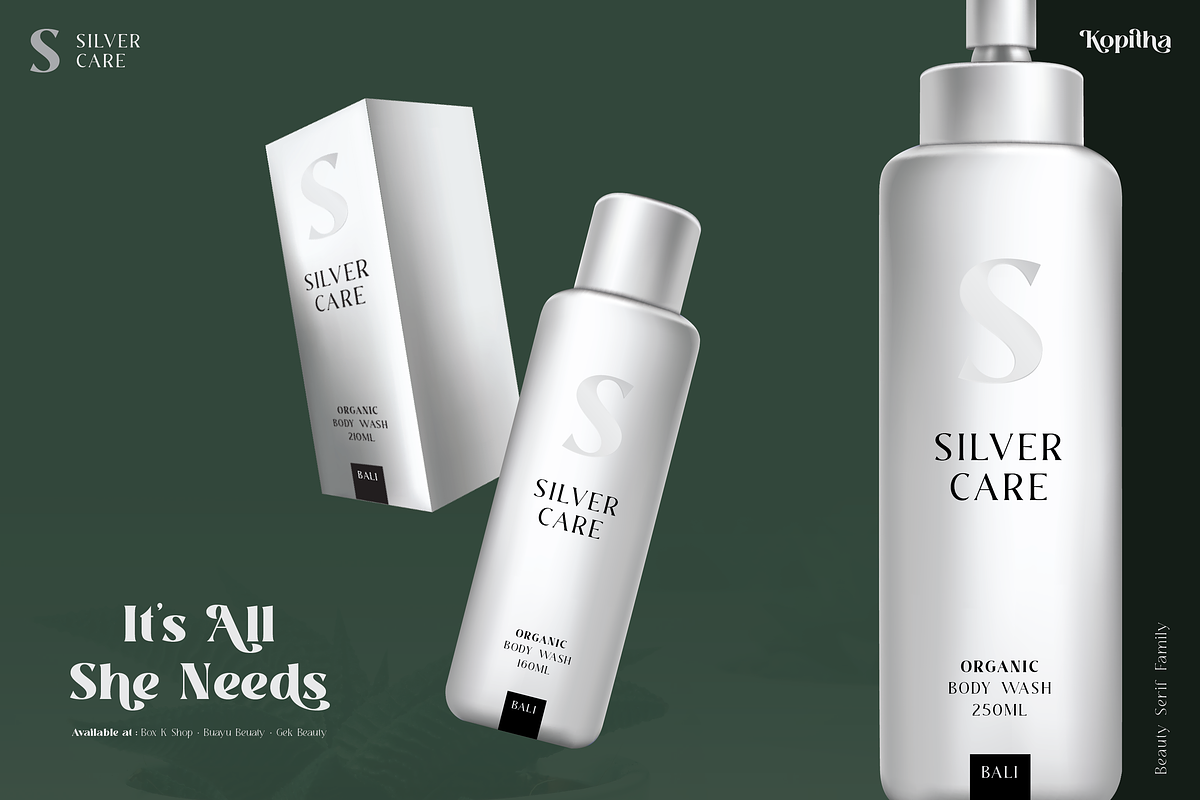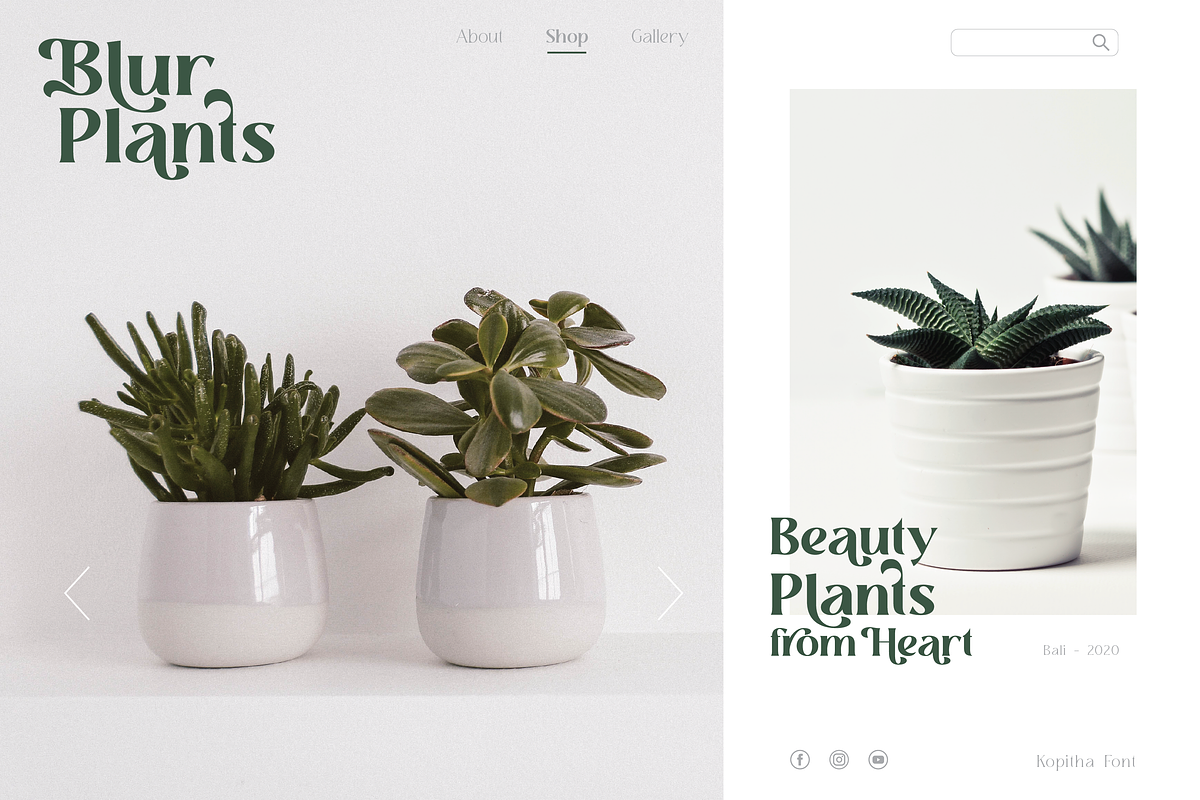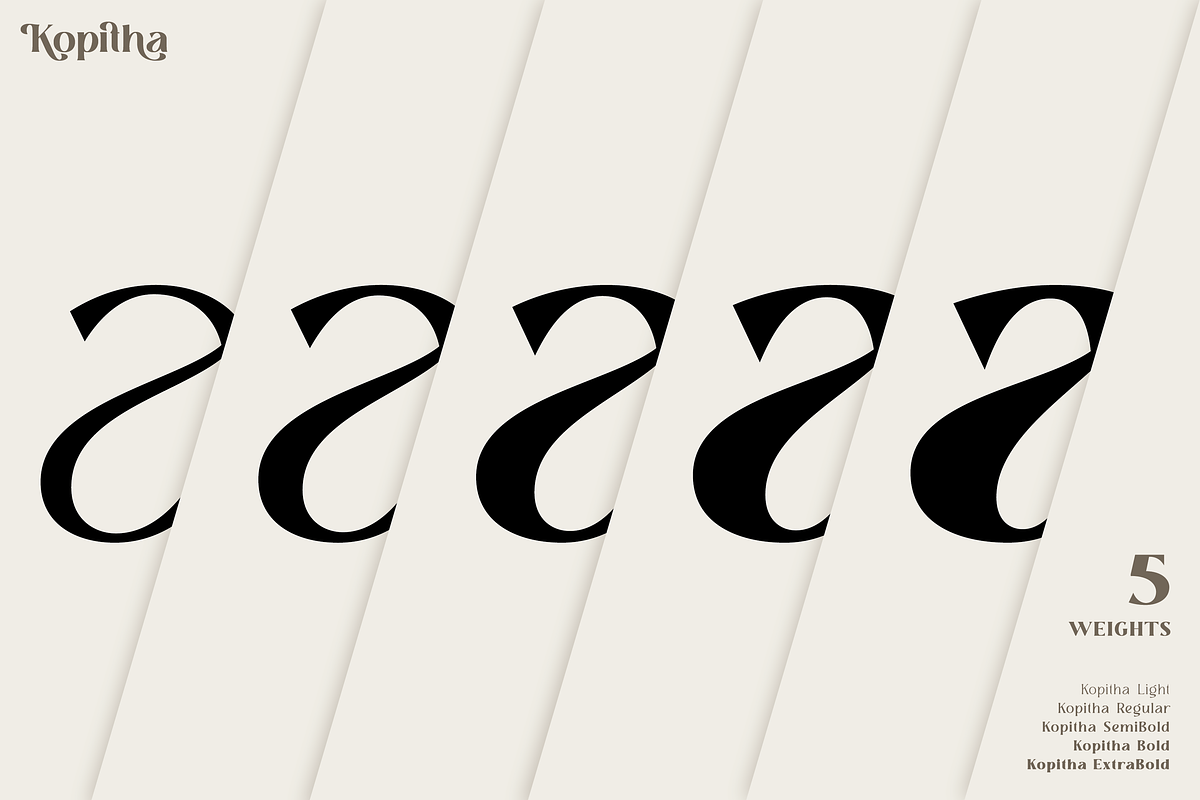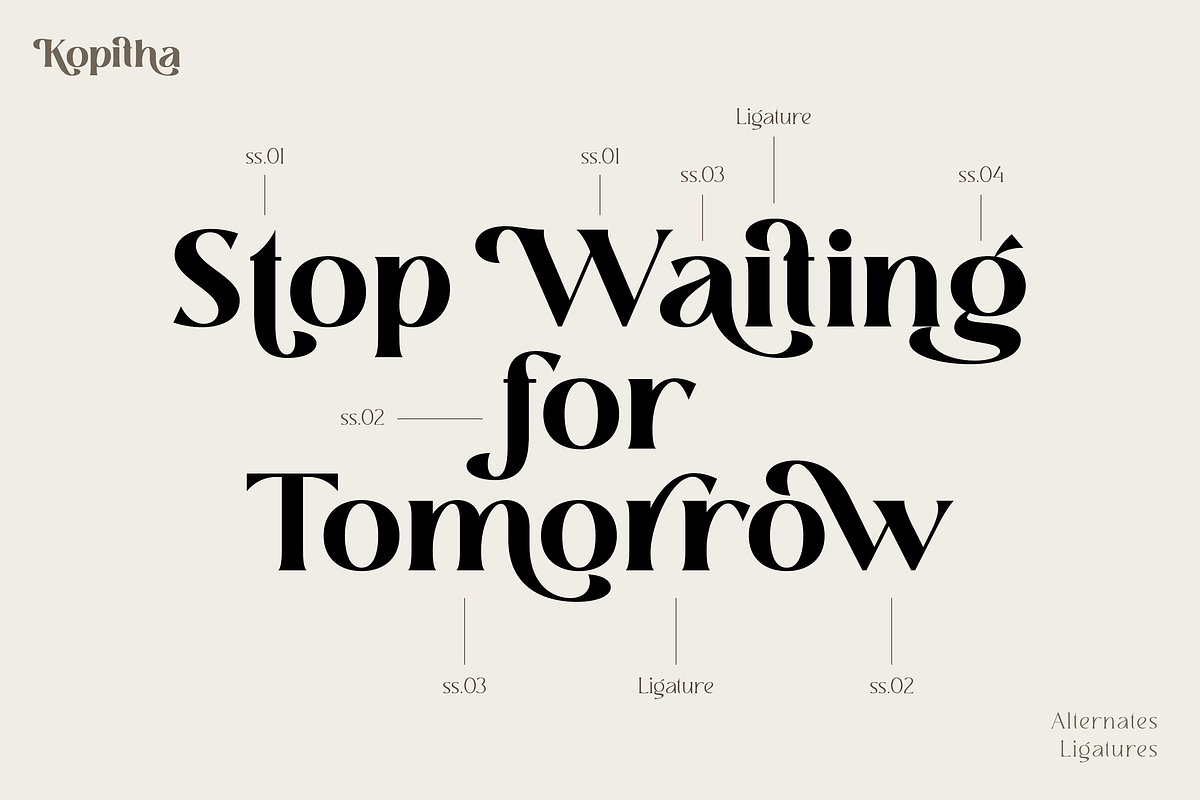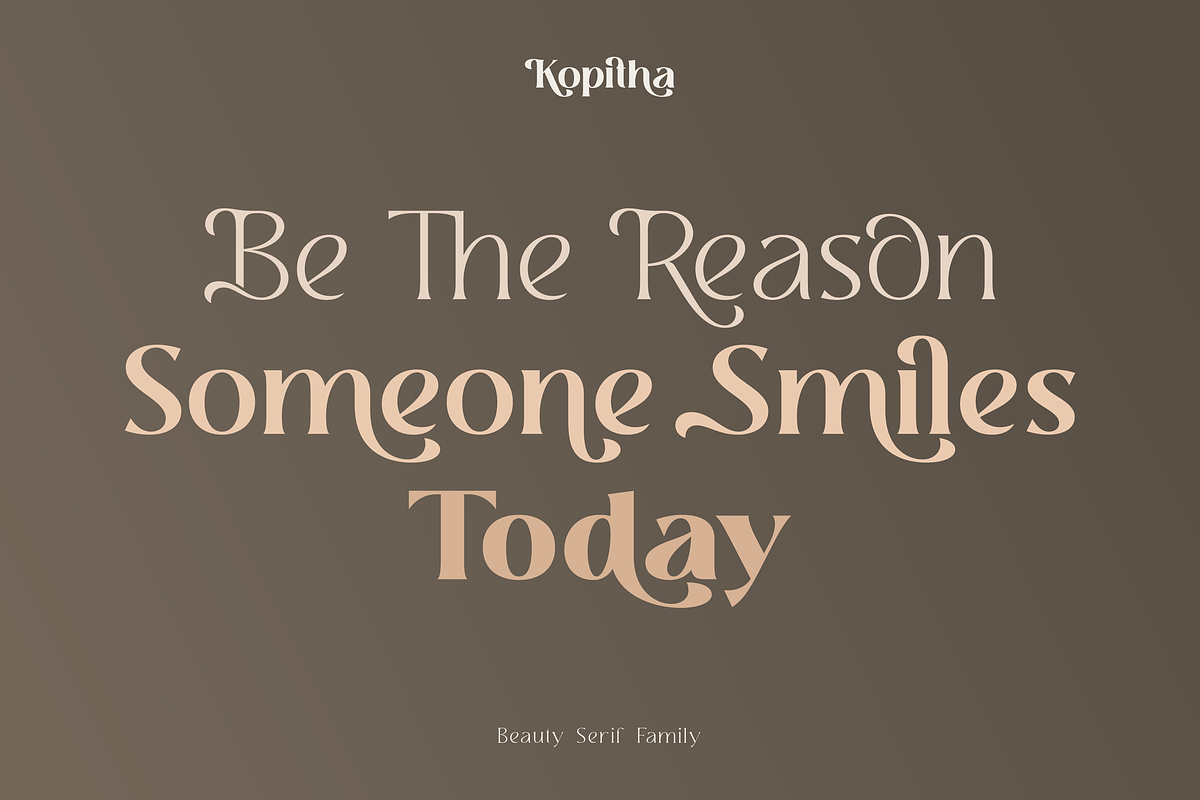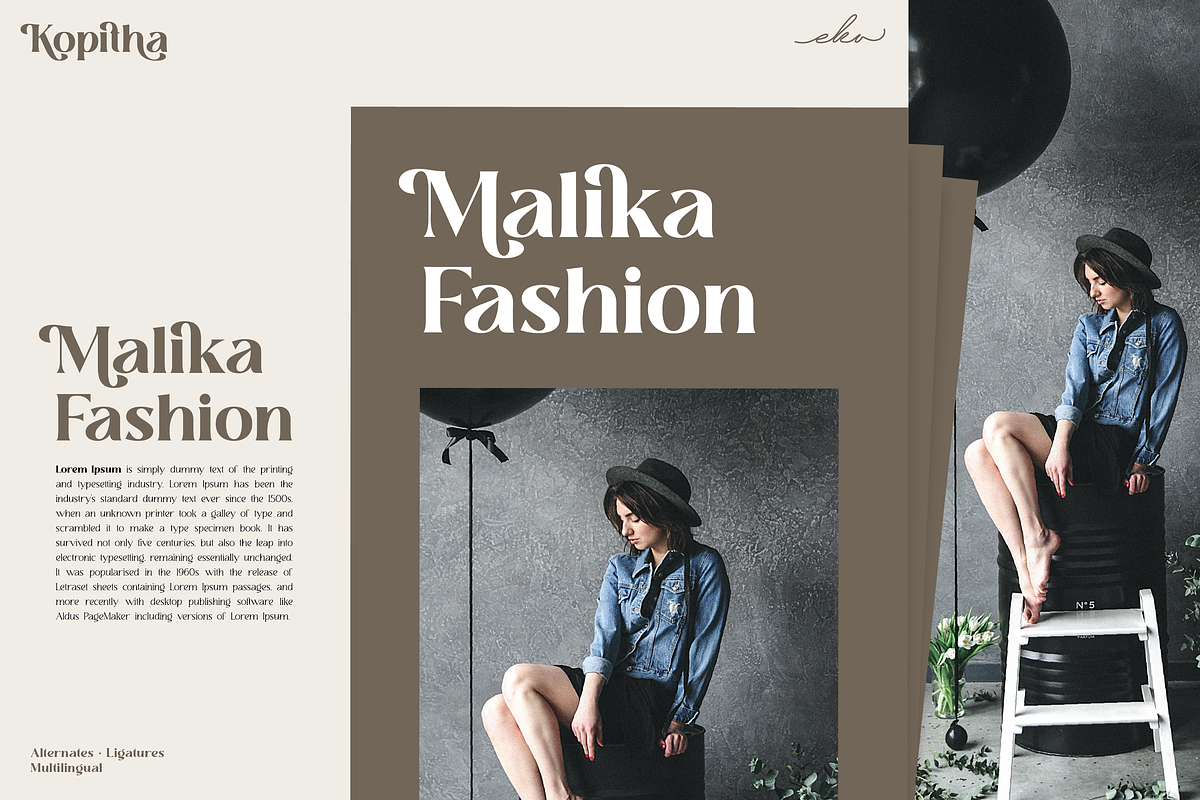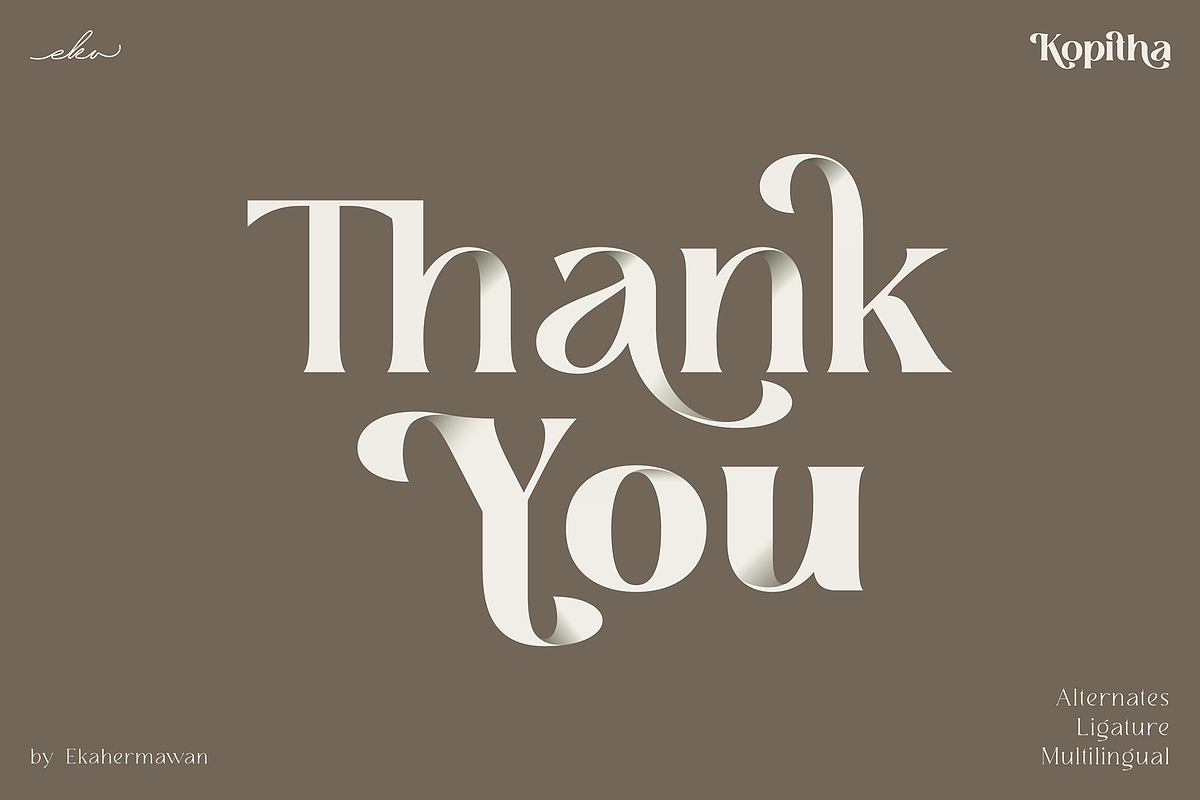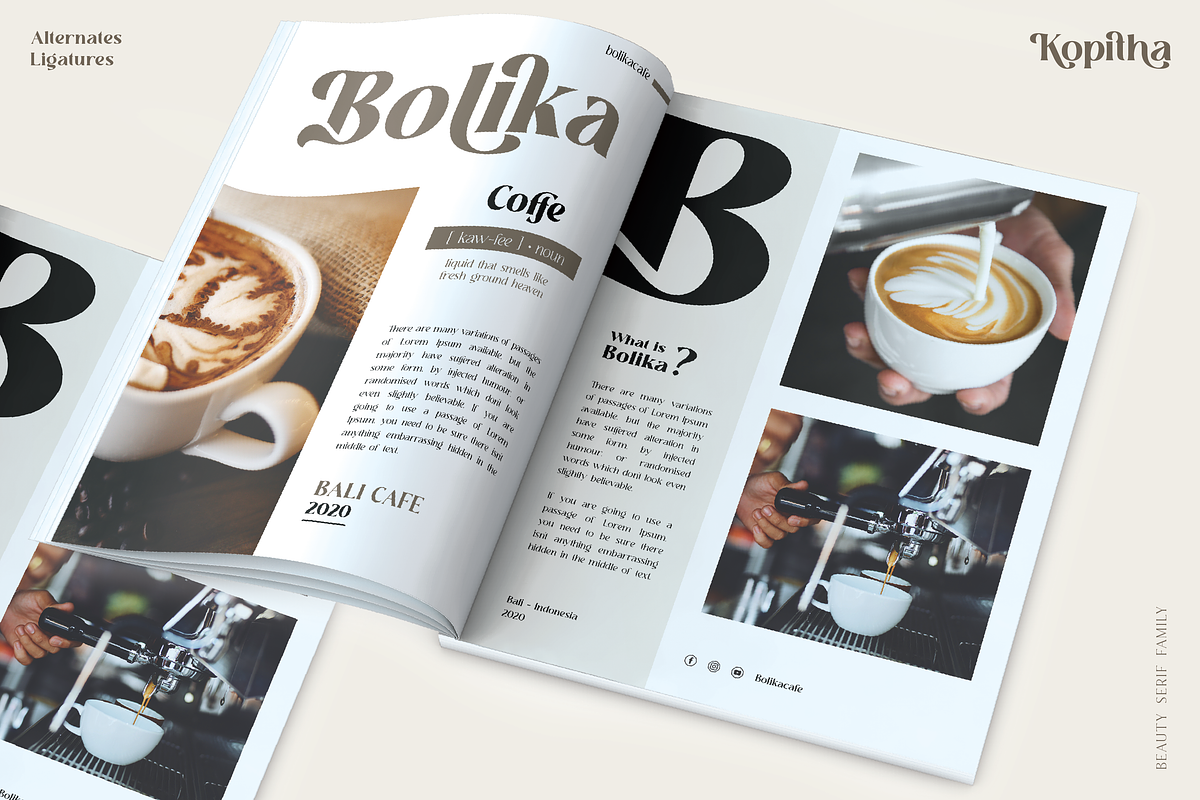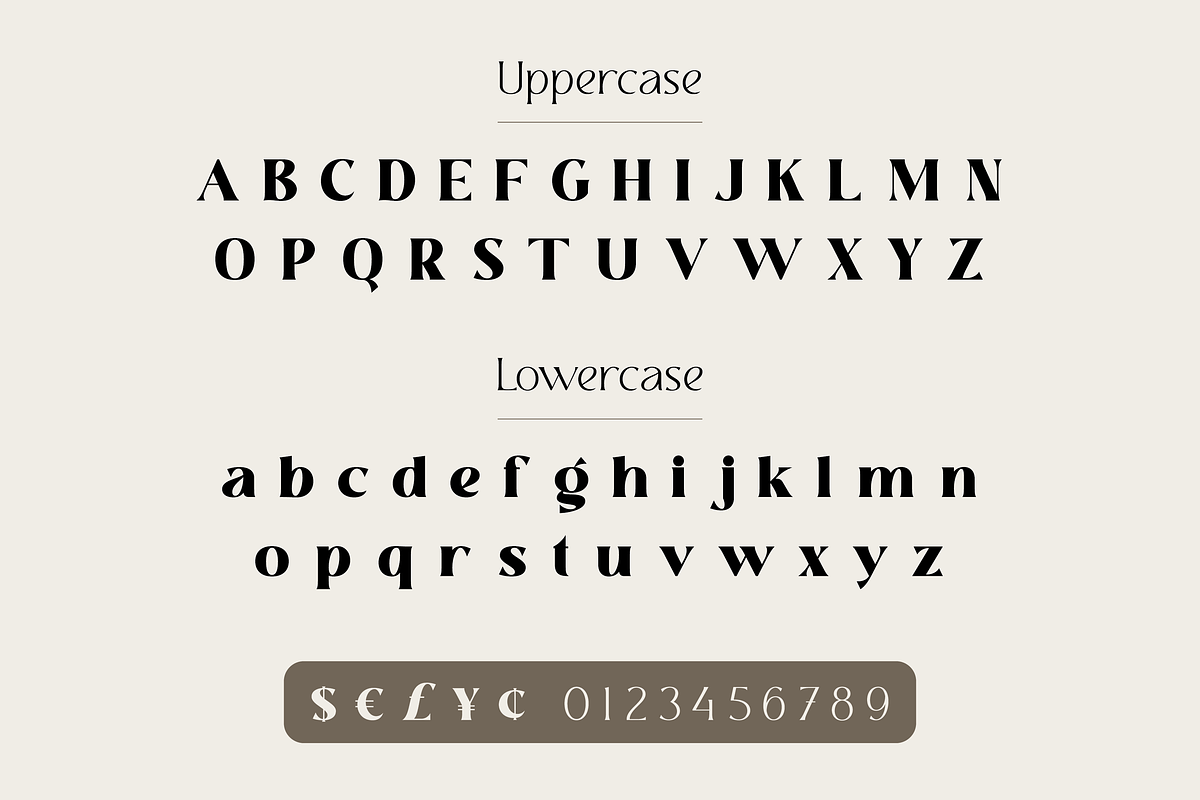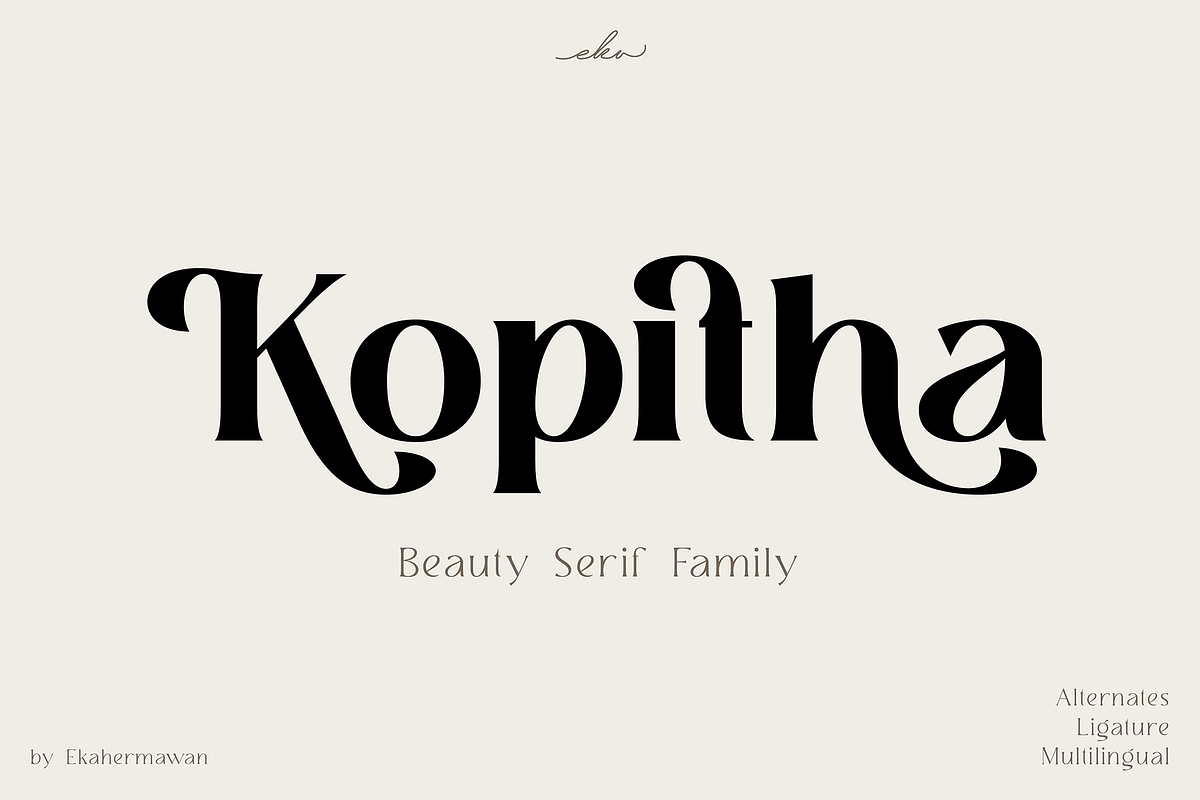
Kopitha - Modern Serif Font
Kopitha is a beauty serif family with 5 weights from Light to ExtraBold. Kopitha also includes alternate characters (PUA Encoded) and ligatures to give you a wide range for create an unique typographic design results. Kopitha is suitable font for many different projects such as logo, branding, poster, magazines, label, merchandise, invitation, presentation, advertising, quotes and so much more!
- OpenType support
- Playfull to use (with ligatures and alternates options)